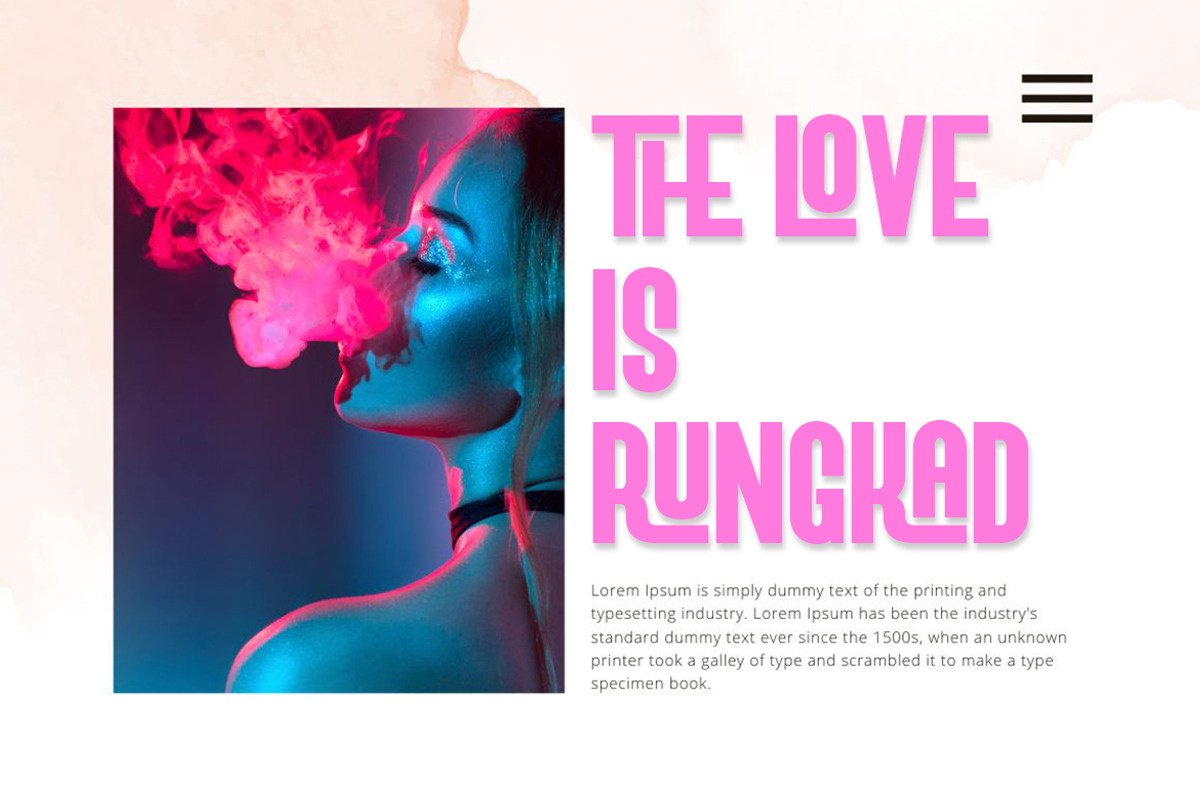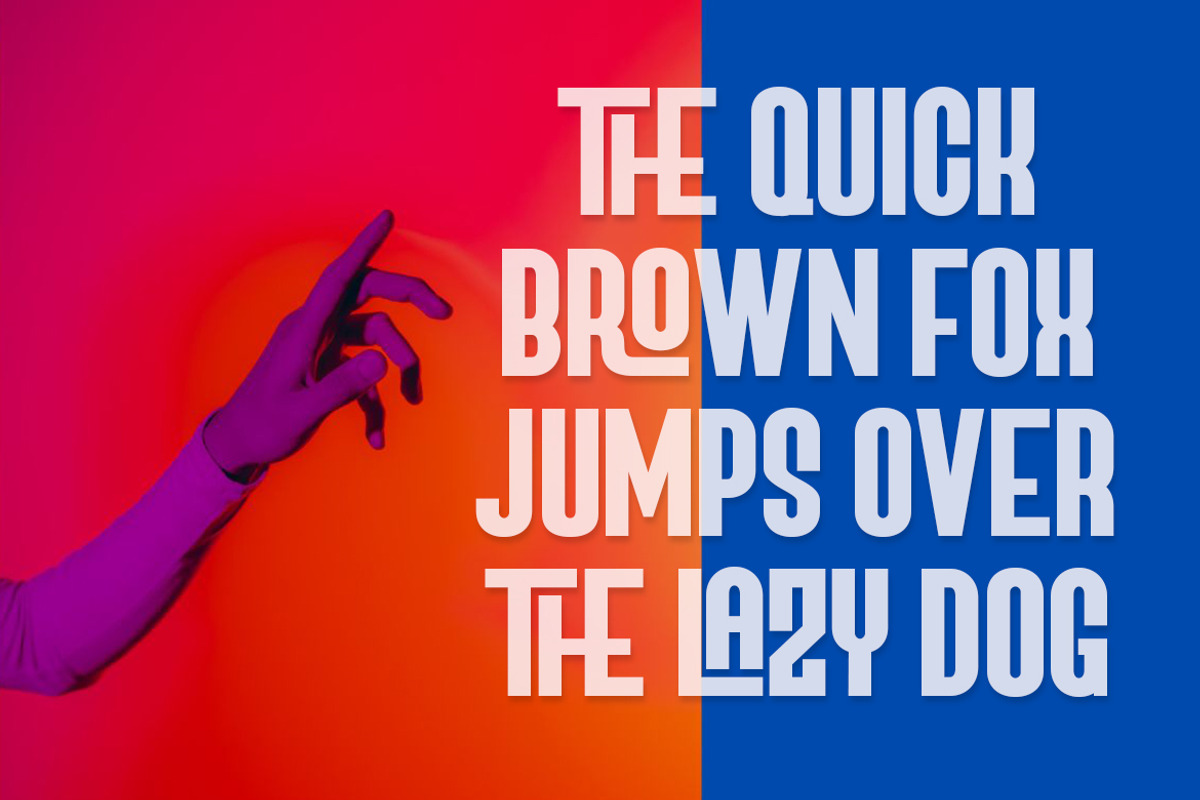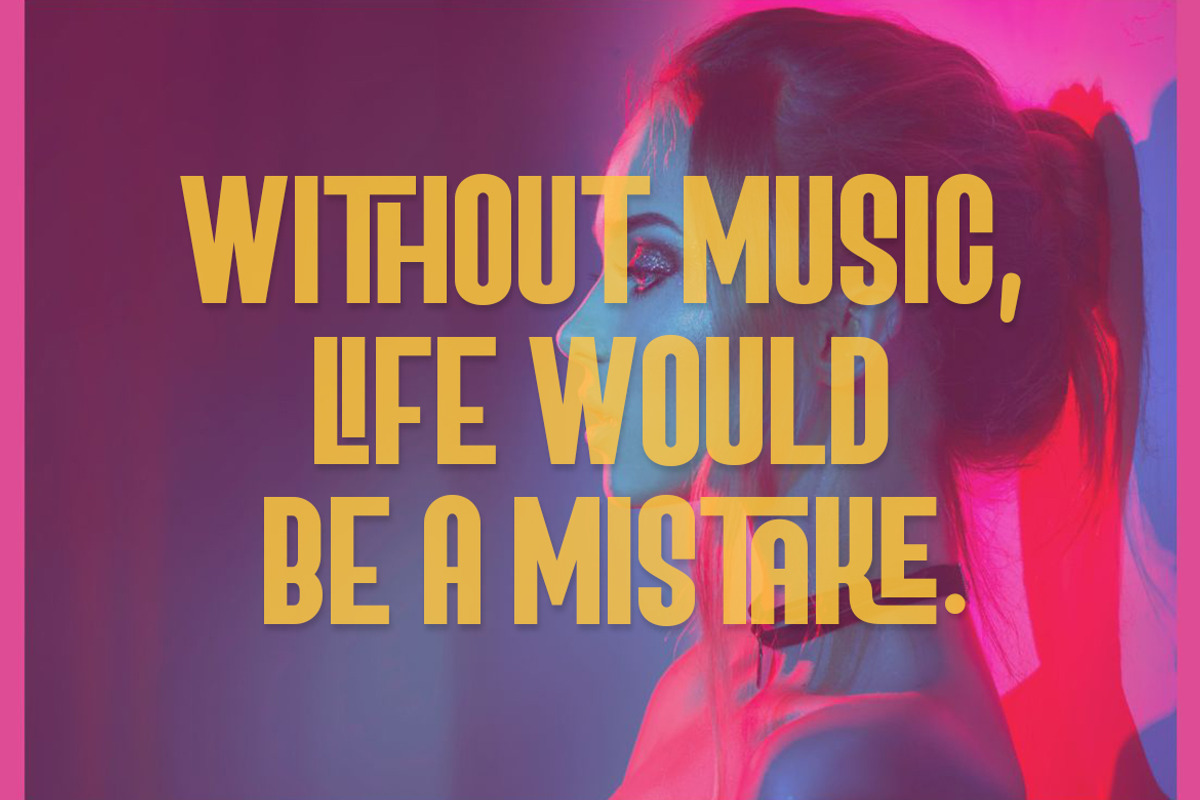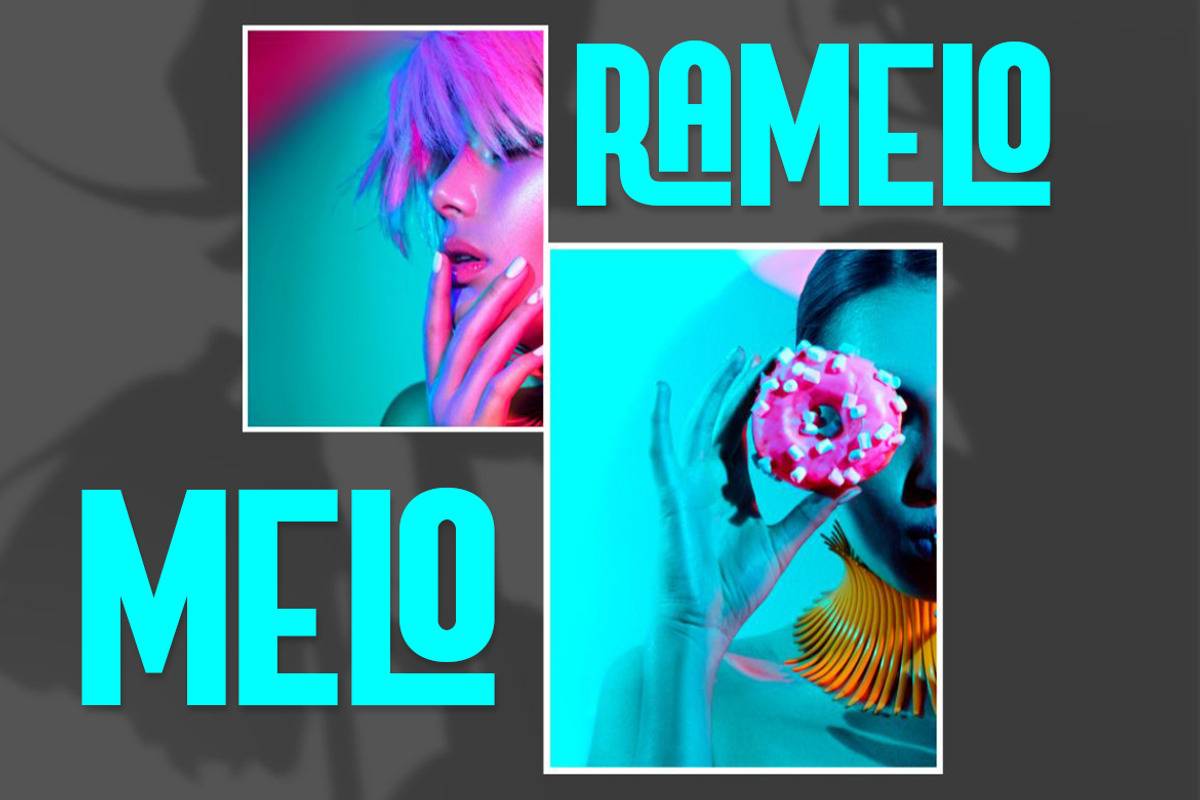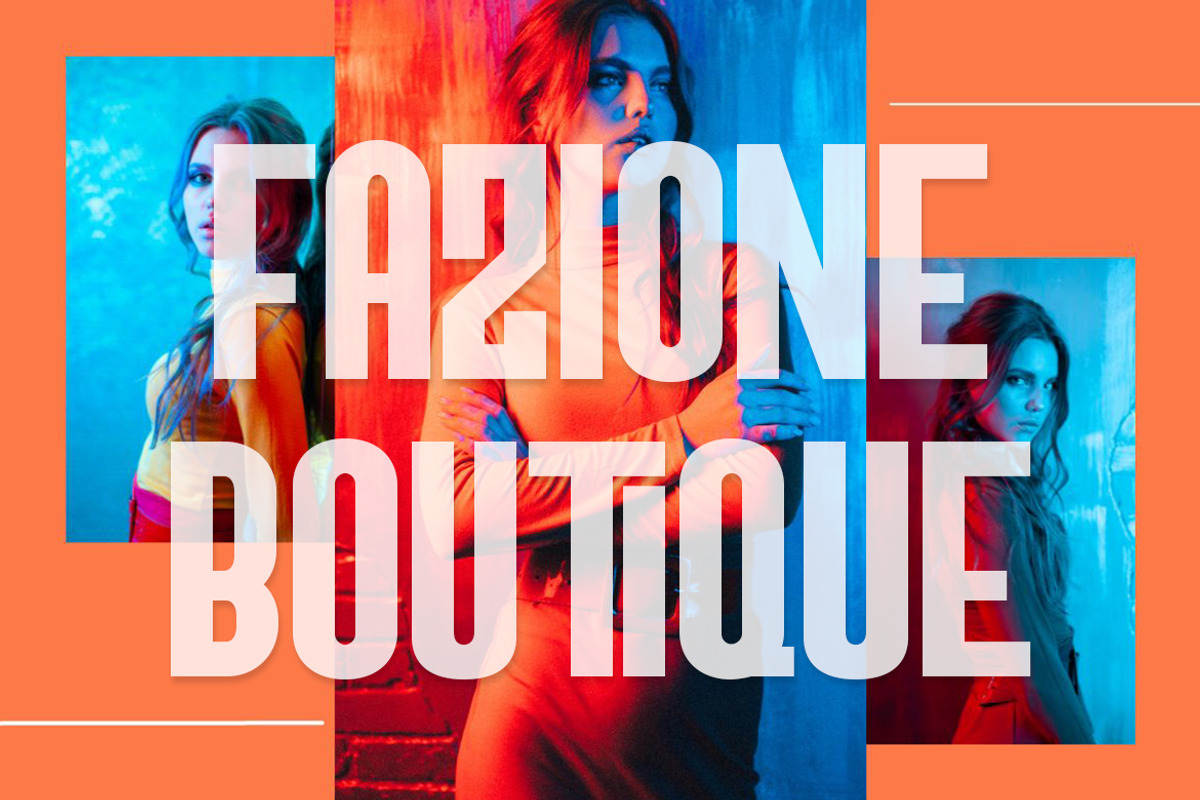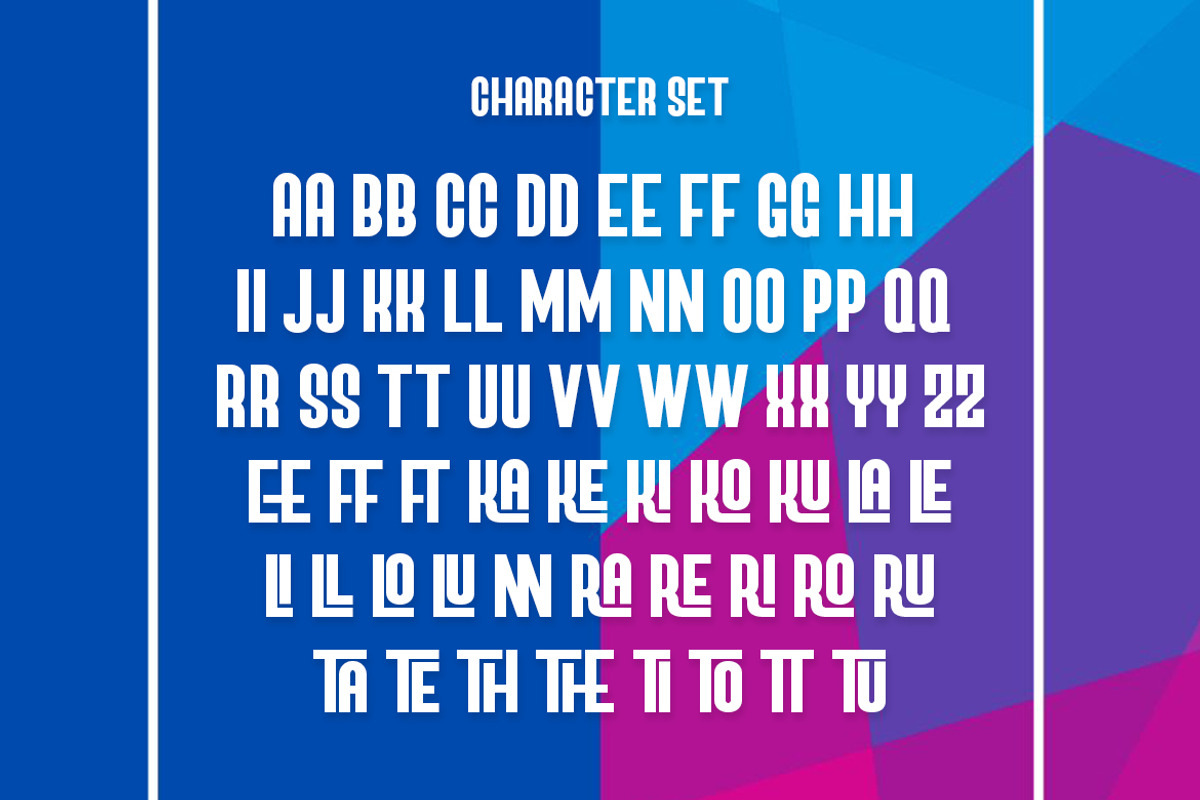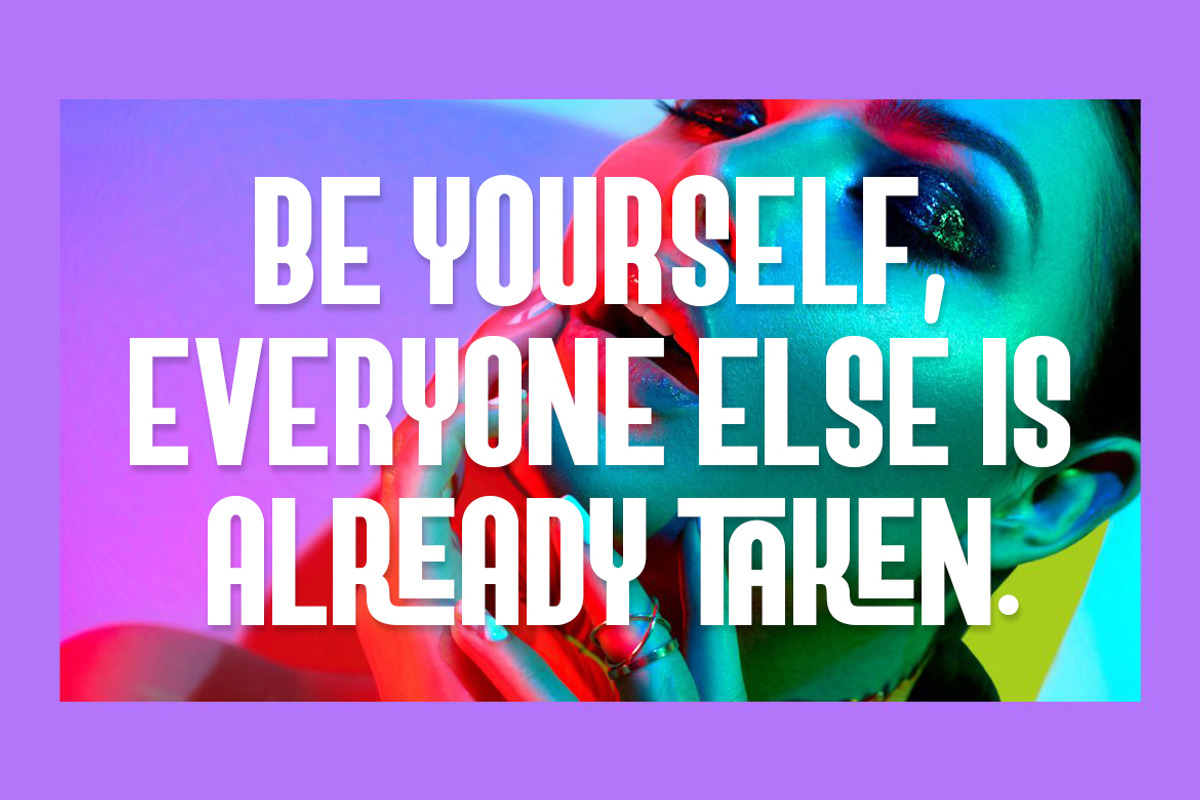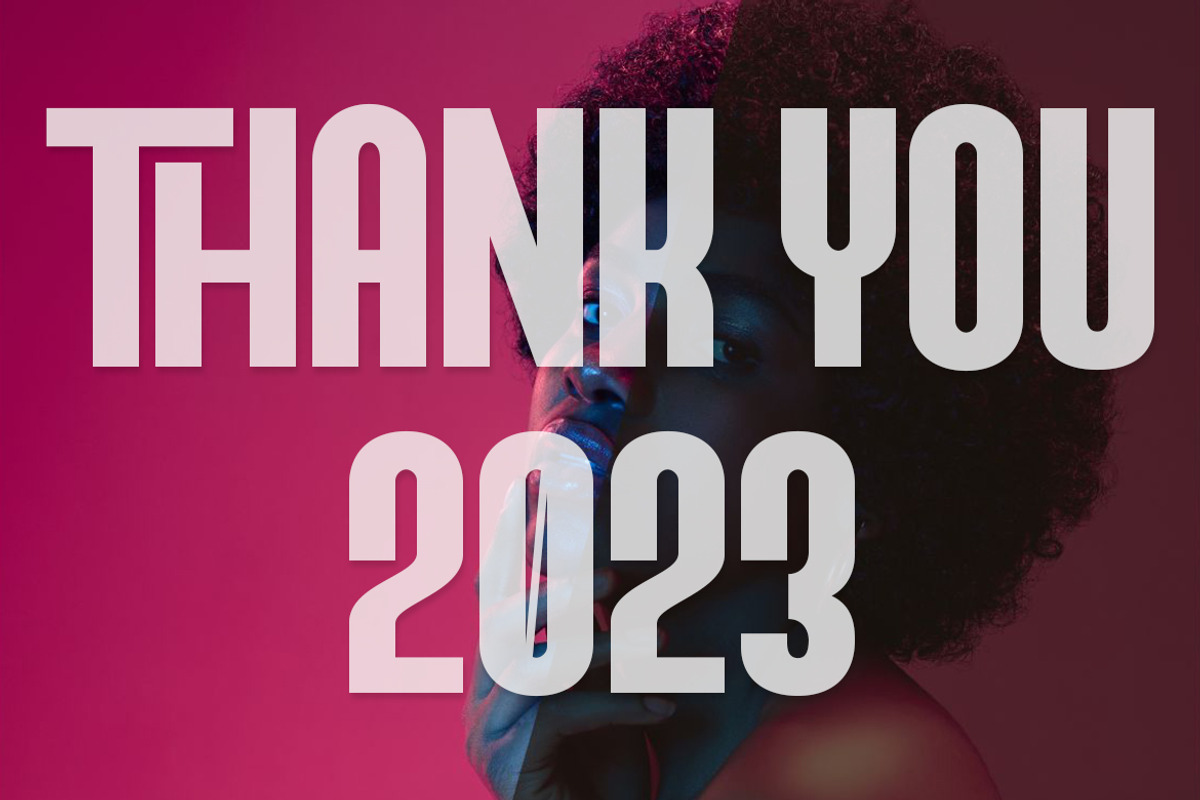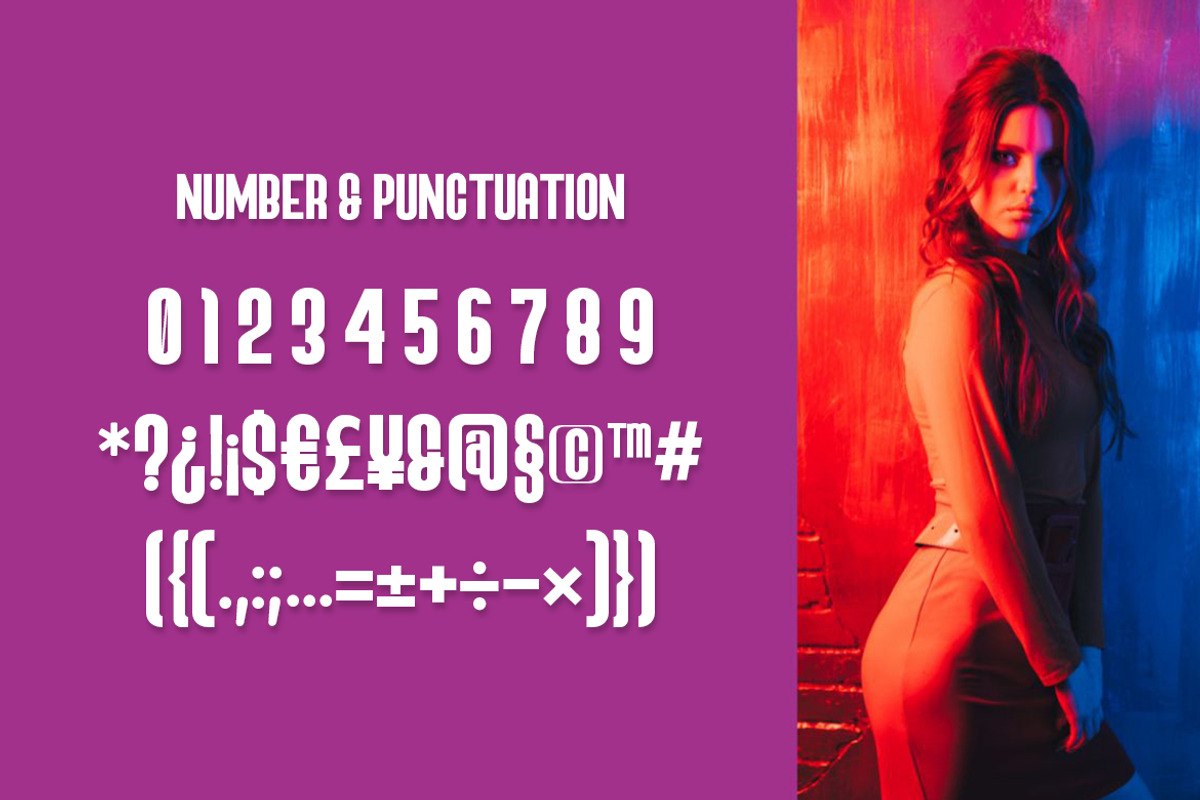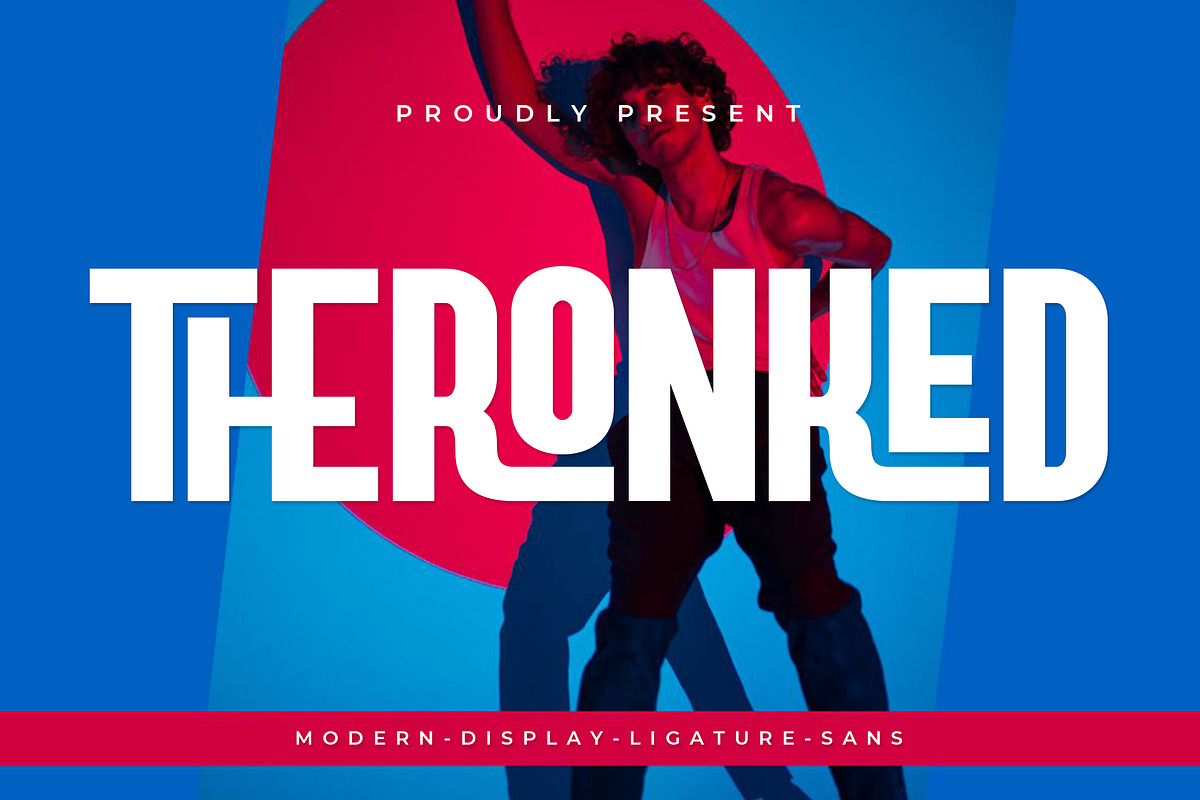
Theronked - Modern Ligature Sans
Introducing Theronked - Modern Ligature Sans. Theronked is a modern and simple font with more unique ligatures, best used as a display for headings, logos, branding, magazines, product packaging and invitations.